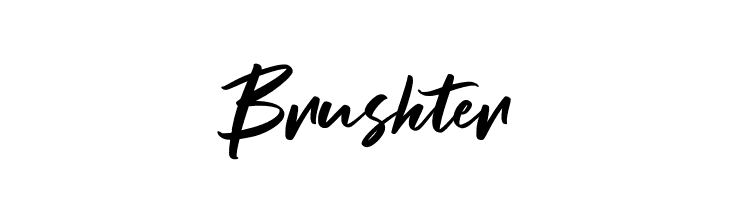
A playful, handwritten font with a bold and friendly style.
An elegant, flowing script font with ornate uppercase and cohesive lowercase letters.
A bold, geometric sans-serif font with a strong, block-like appearance.
A bold, italicized font with a dynamic and energetic style.
A bold, modern font with strong, uniform characters ideal for impactful designs.
A sleek, modern font with geometric lines and uniform character width.
A bold, rounded font with a playful and friendly style.
A geometric, modern font with tall, narrow letters and consistent line thickness.
A geometric outline font with angular, structured characters.
A bold, cursive script with dynamic curves and elegant flourishes.
A bold, angular font with a geometric, stencil-like appearance.
Elegant handwritten script font.
A playful, bold font with rounded, bubbly characters and a hand-drawn style.
A distressed, blackletter-inspired font with a grunge aesthetic.
A bold, playful font with rounded edges and a cohesive, friendly design.
A playful, rounded font with bold, smooth curves and even spacing.
A bold, playful handwritten font with rounded strokes and a dynamic slant.
A bold, expressive handwritten font with dynamic, cursive strokes.
A sophisticated and elegant script font with fluid, cursive strokes.
An ornate, boxed decorative font with intricate floral patterns.
A bold, Gothic font with decorative, medieval-inspired elements.
An ornate and decorative font with high contrast and enclosed letters.
A modern blackletter font with circular enclosures and bold, angular strokes.
A bold, decorative font with Gothic-style uppercase letters in square frames.
An ornate Blackletter font with bold, angular strokes and intricate details.
A bold, calligraphic font with ornate, flowing designs and sharp angles.
Elaborate, pictorial font with fantasy illustrations forming each character.
A pictorial dingbat set featuring dramatic fantasy illustrations.
A playful and whimsical font with characters depicted as unique animal illustrations.